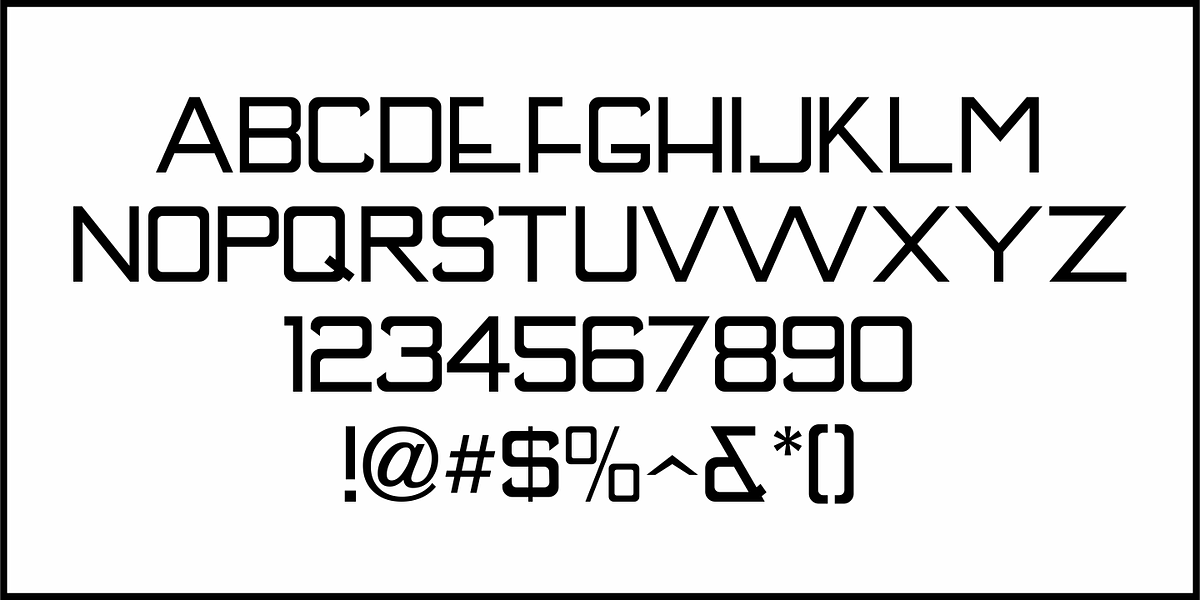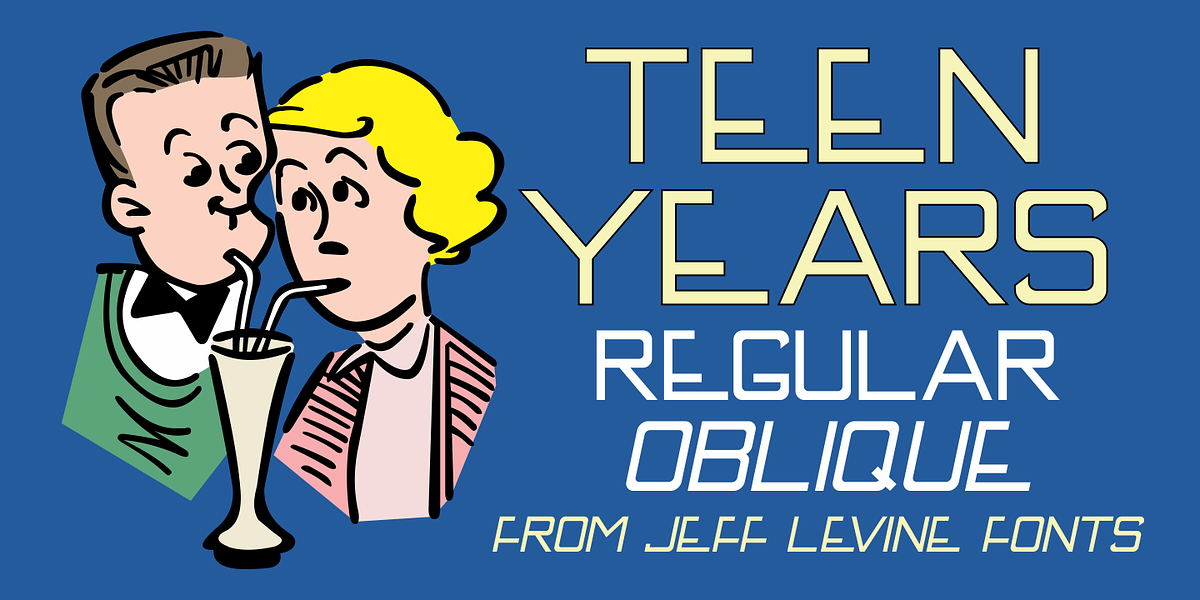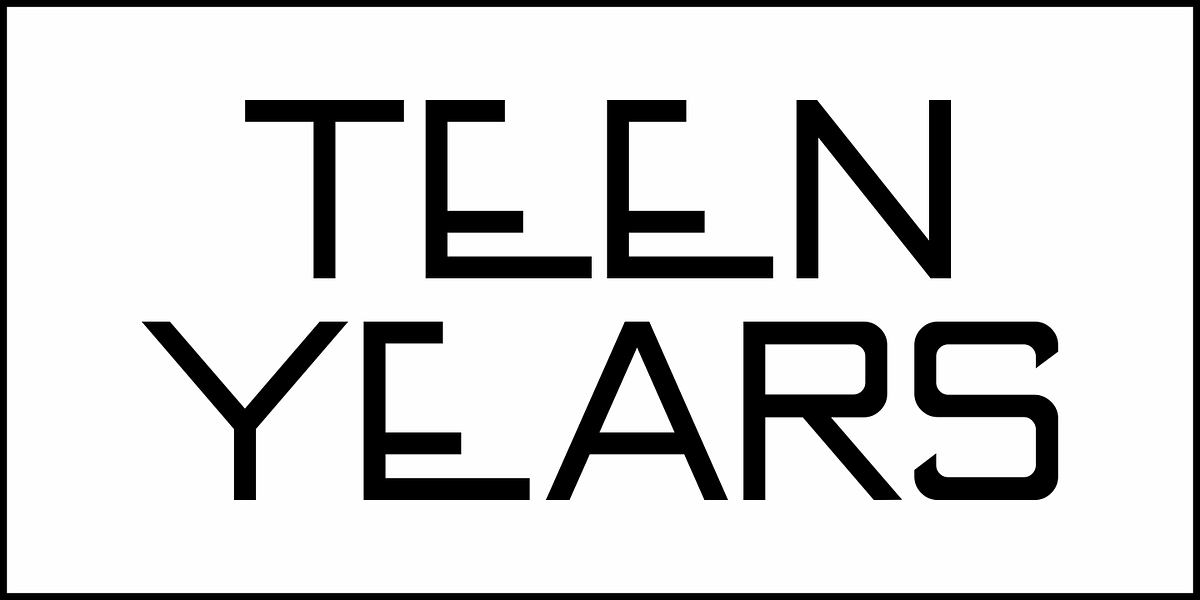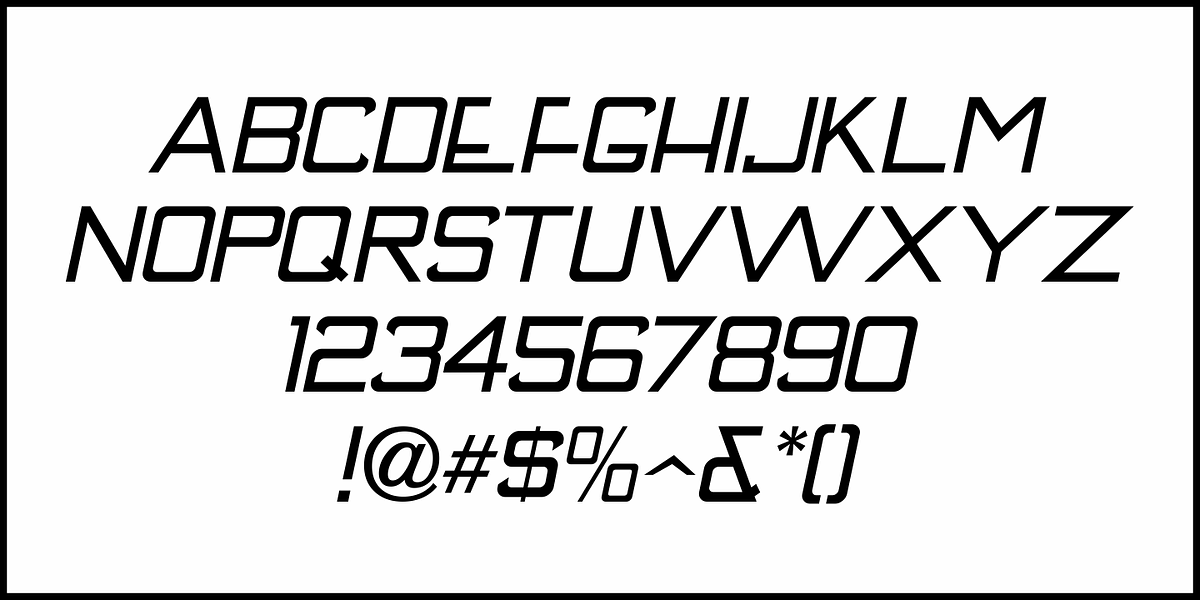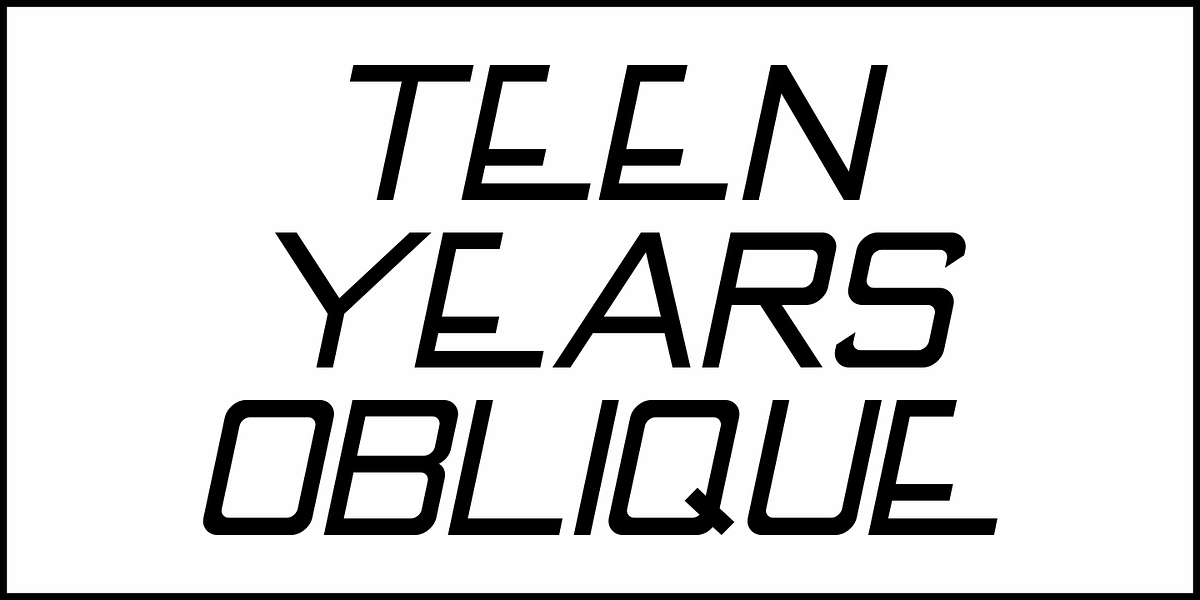
Teen Years JNL
Teen Years JNL was inspired by the hand lettered name for the Joyce Records label (circa 1956) which first recorded the New York doo-wop group The Crests (of “16 Candles” fame). The type design is a block sans serif, and is available in both regular and oblique versions.